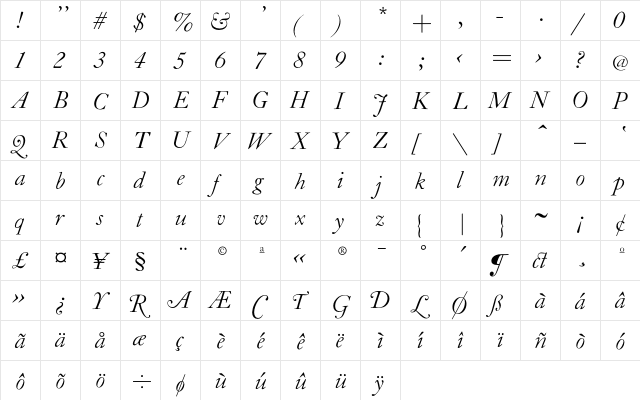
CaslonLW-Italic Regular Font Preview
CaslonLW-Italic Regular
CaslonLW-Italic Regular Font Details
Design Context for CaslonLW-Italic Typeface
CaslonLW-Italic offers clean, dependable letterforms without strong stylistic allegiance, making it a practical choice for designers who need flexibility. Its italic angle brings a sense of urgency and motion to the letterforms.
Pro Tip: Use CaslonLW-Italic for emphasis, pull quotes, and subheadings where its slanted energy can add rhythm to the layout.